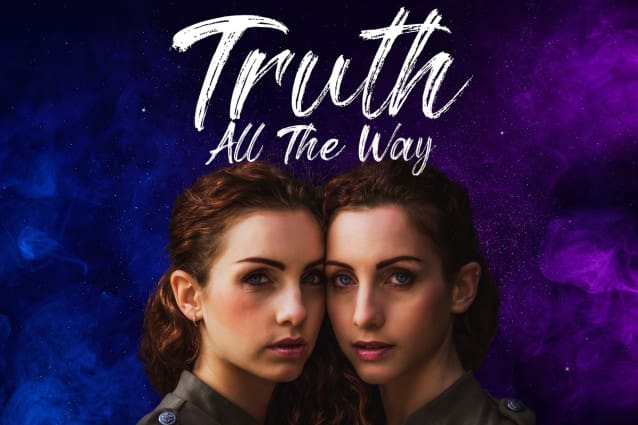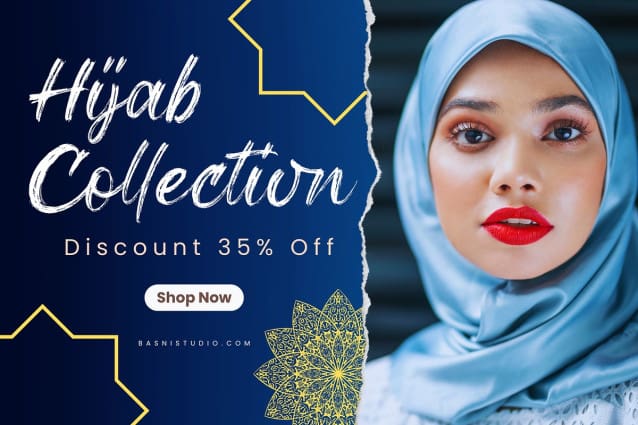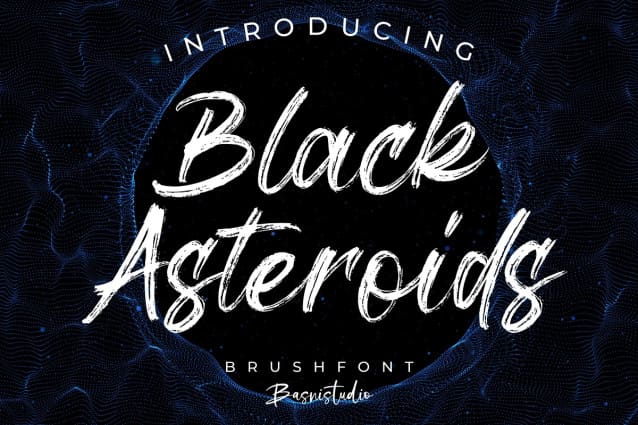
Black Asteroids Font
Black Asteroids Font, made with Naturaly Brush & Unique, perfect for branding, websites, and editorial designs. Includes all Characters letters, multilingual support, punctuation, binding. everything can be easily accessed using software that supports OpenType.